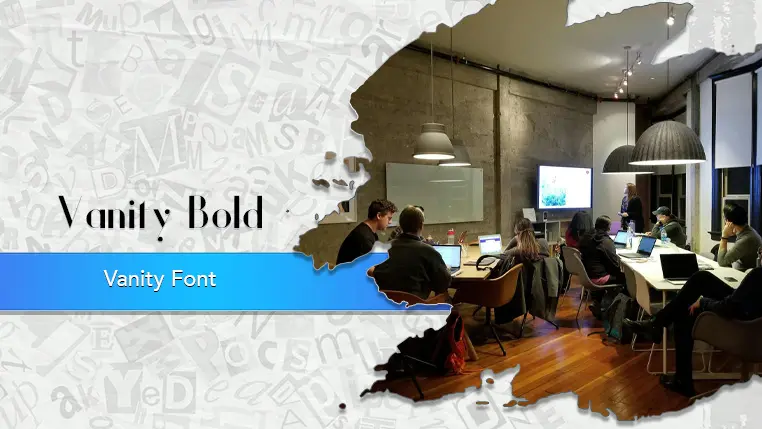
The Vanity font family may be ideal for you if you enjoy working on an artistic design project. The lively, expressive look of this typeface, which was created by Hendrick Rolandez, makes it ideal for Branding and corporate identity. Vanity's clear and highly readable letterforms, especially in its various weights, make it a great choice for both headlines and body text on websites, apps, and other digital platforms. The elegant nature of the font makes it well-suited for high-fashion magazines, posters, books, and other print media where a polished look is desired. The font's different weights and widths allow for effective use in creating eye-catching headlines and display text for advertising and promotional materials. and other light-hearted visual projects.
Bold, Bold Italic, Bold Wide, Bold Wide Italic, Light, Light Italic, Light Narrow, Light Narrow Italic, Light Wide, Light Wide Italic are the twelve primary font styles of the Vanity font family. You may build dynamic, visually appealing text layouts with the distinct flair that each style offers. With crisp, readable lines and a relaxed tone.